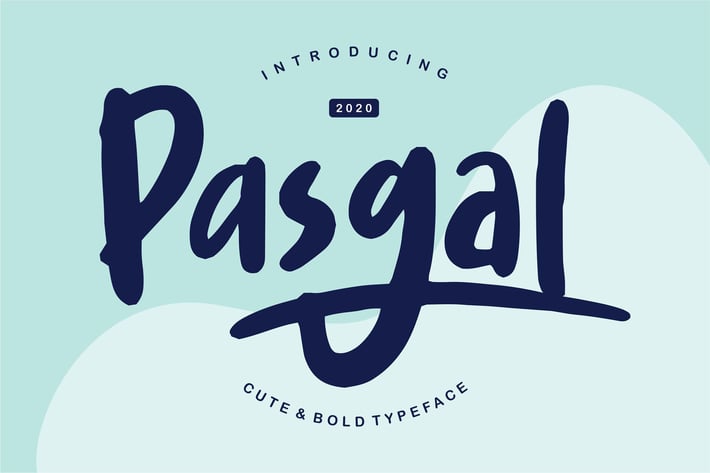
Pasgal | Cute & Bold Typeface
Pasgal | Cute & Bold Typeface with a calligraphy style, So beautiful on invitation like greeting cards, branding materials, business cards, quotes, posters, and more!